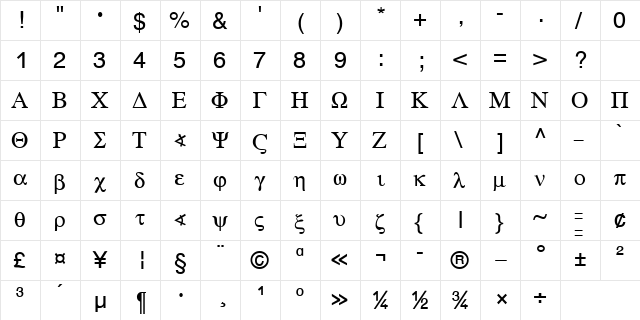
Greek Becker Normal
Design Context for Greek Becker Typeface
Greek Becker takes a measured approach to typography — its balanced proportions and neutral character make it a reliable workhorse for both digital and print work.